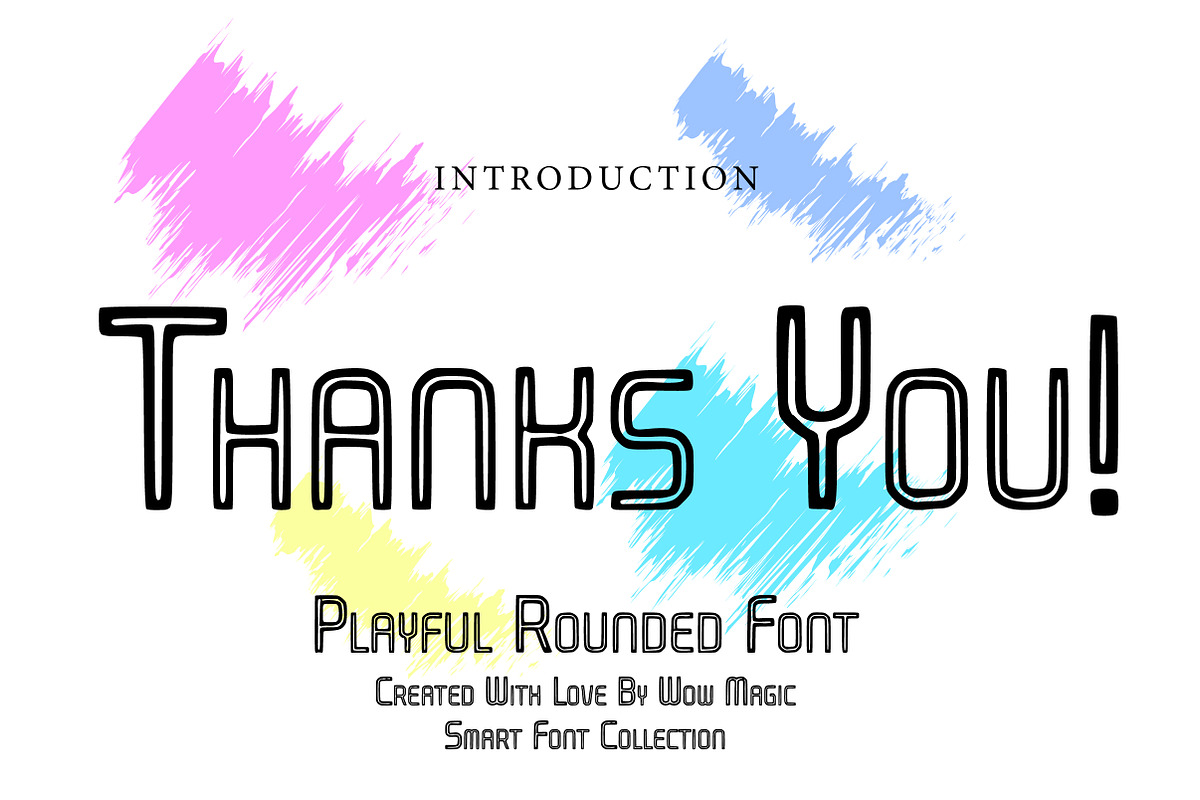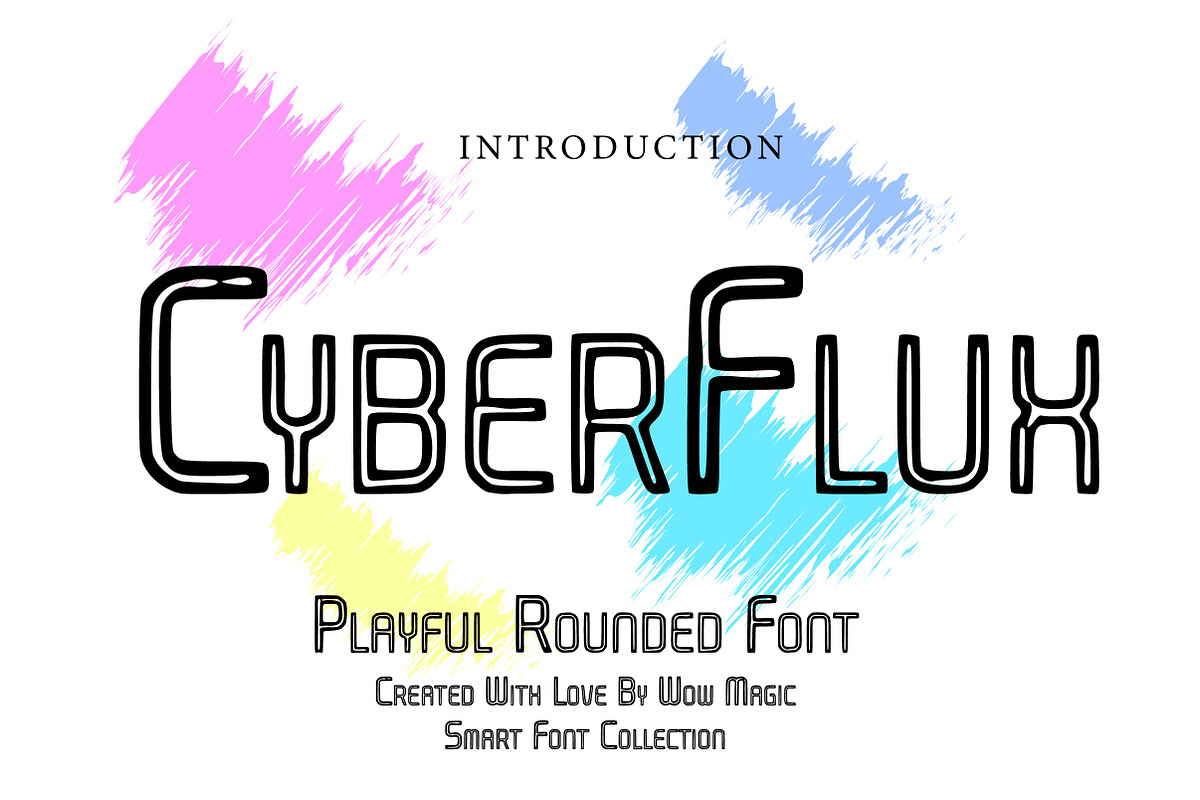
CyberFlux
Cyber Flux is a futuristic tubular outline display font inspired by cyberpunk aesthetics, neon lights, and high-tech digital environments. Designed with smooth rounded corners and a clean monoline structure, this typeface delivers a sleek, modern, and innovative visual impact.
Its hollow outline construction gives it a glowing, sci-fi feel — perfect for technology branding, gaming titles, digital posters, logos, YouTube thumbnails, album covers, UI design, and futuristic headline projects. The geometric flow and balanced spacing make it both eye-catching and versatile.
Cyber Flux is ideal for creators who want to add a bold, cyber-inspired, and contemporary touch to their designs. Whether you're building a tech brand, designing a gaming identity, or creating a futuristic poster, this font brings a powerful and stylish digital energy to your work.
Tech & Startup Branding
Gaming Graphics
Sci-Fi Posters
YouTube Thumbnails
Album Covers
Futuristic UI Projects